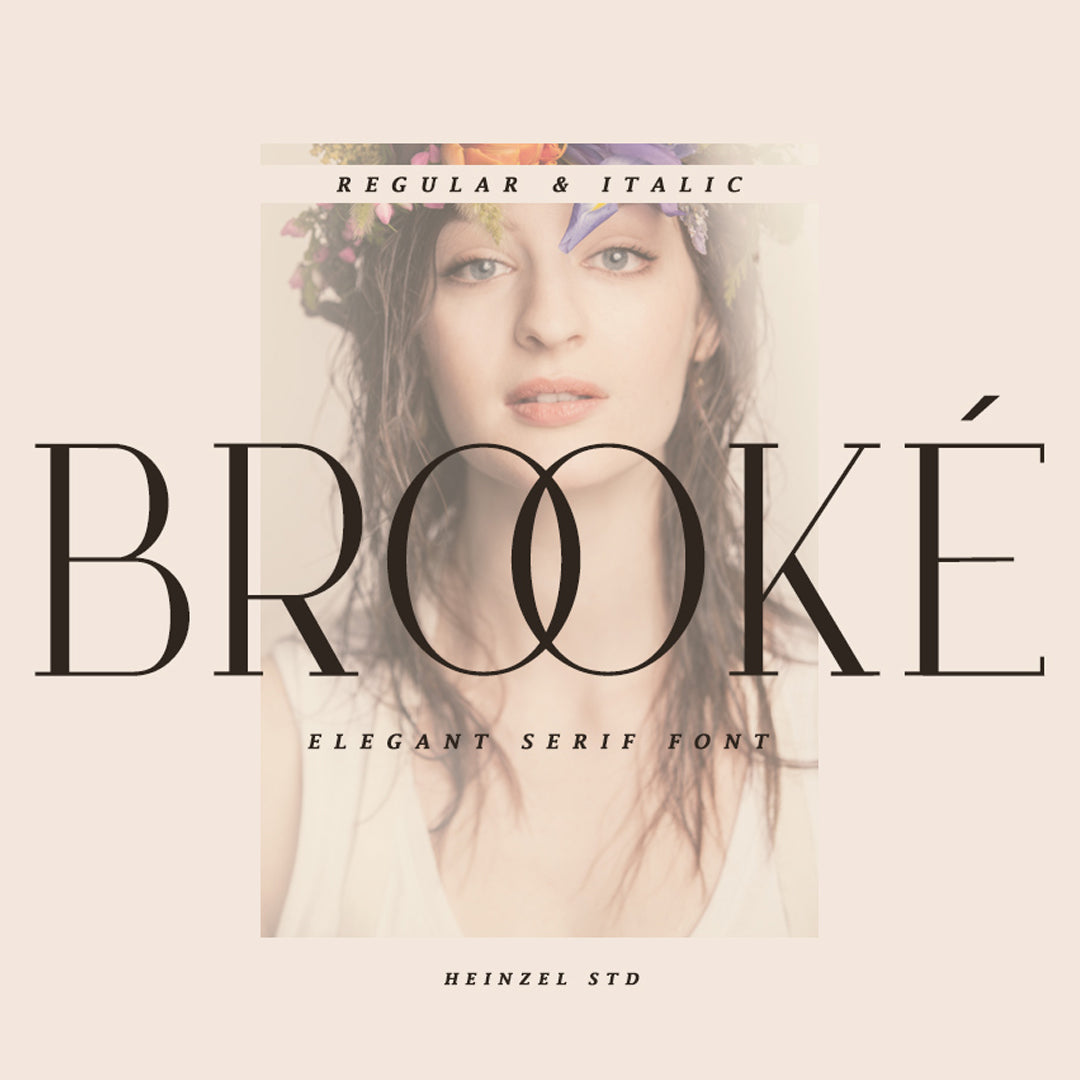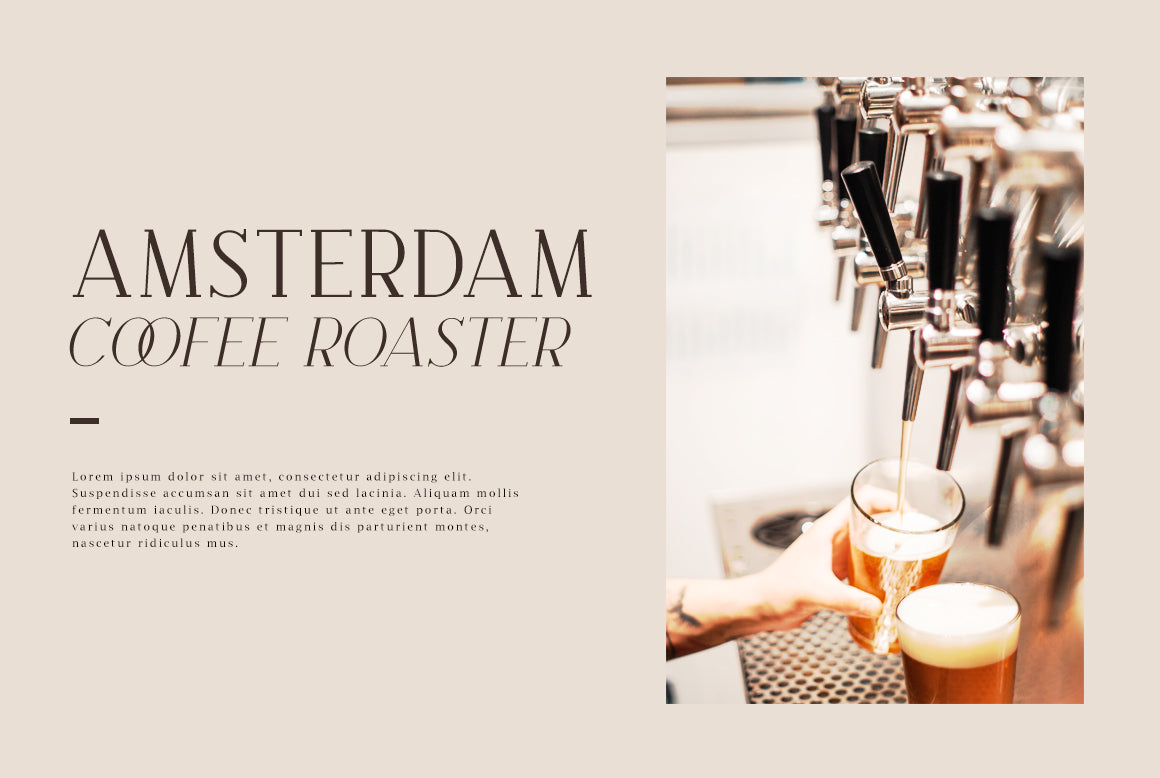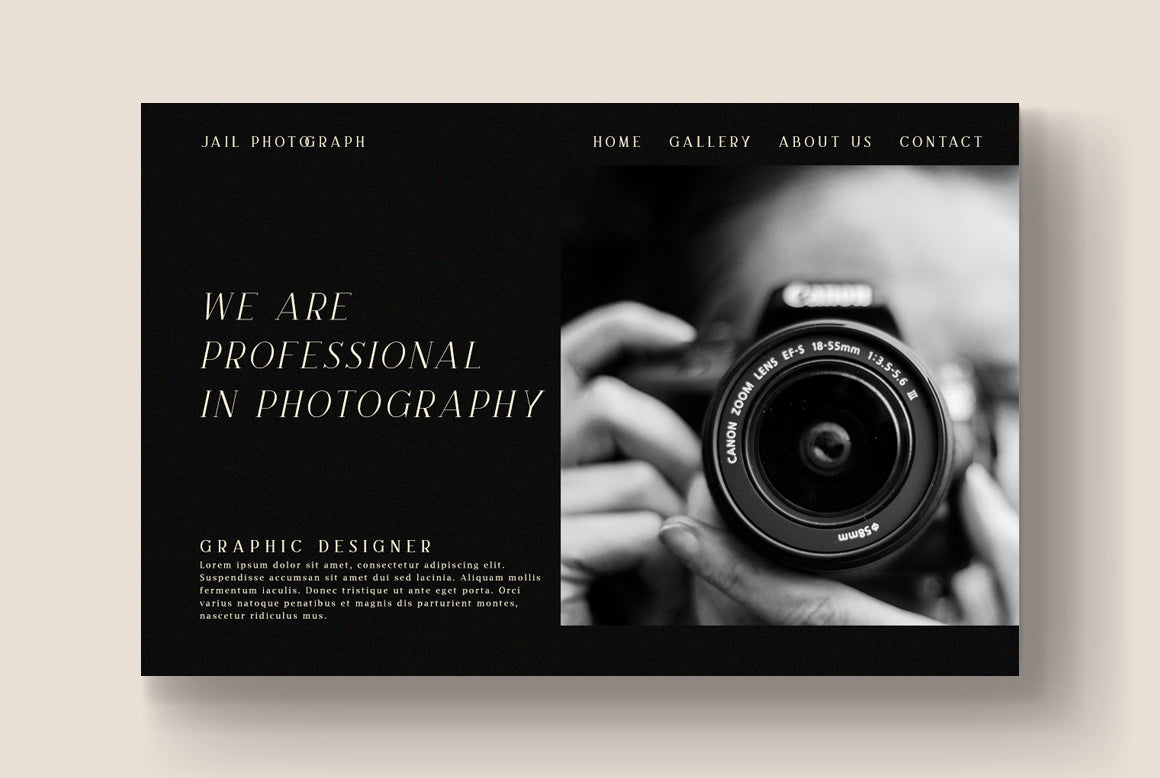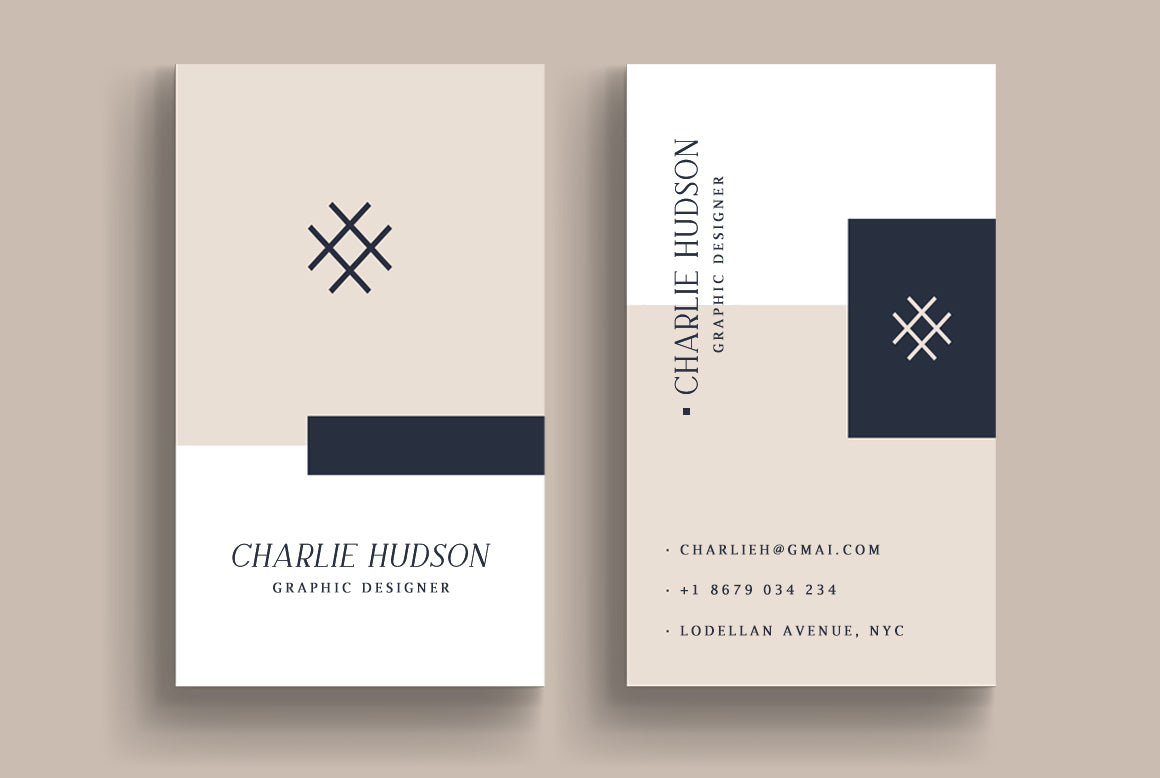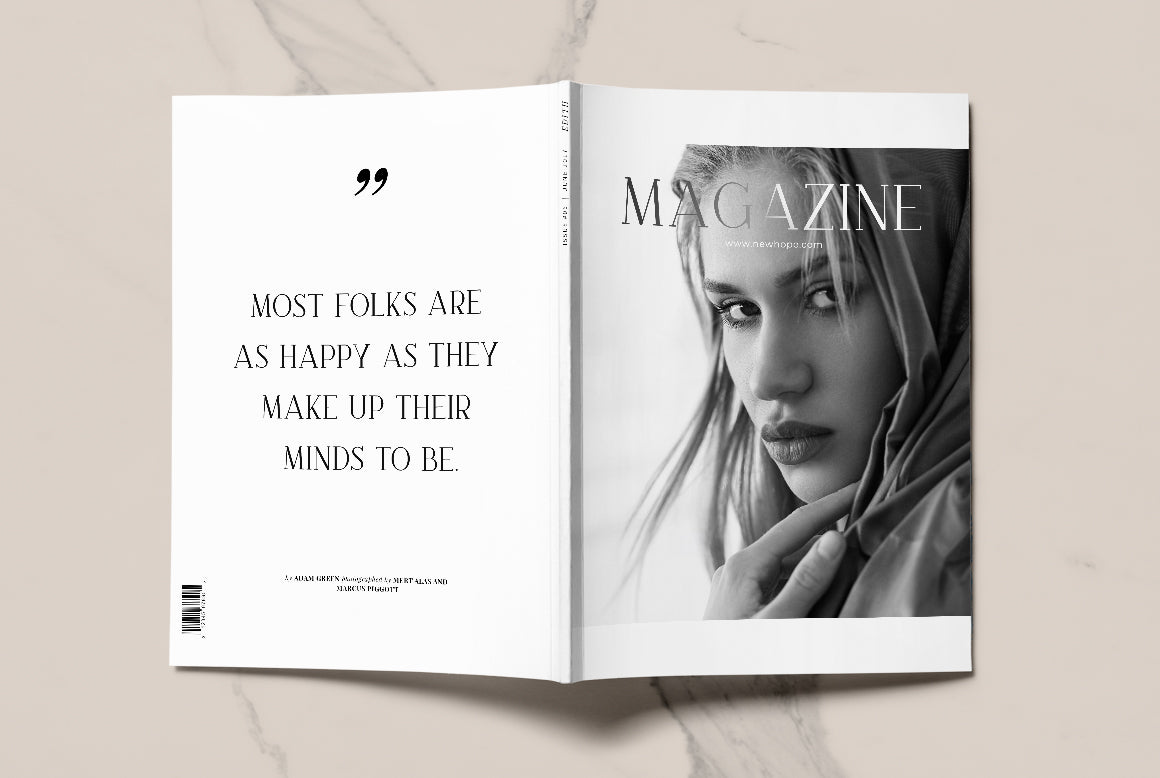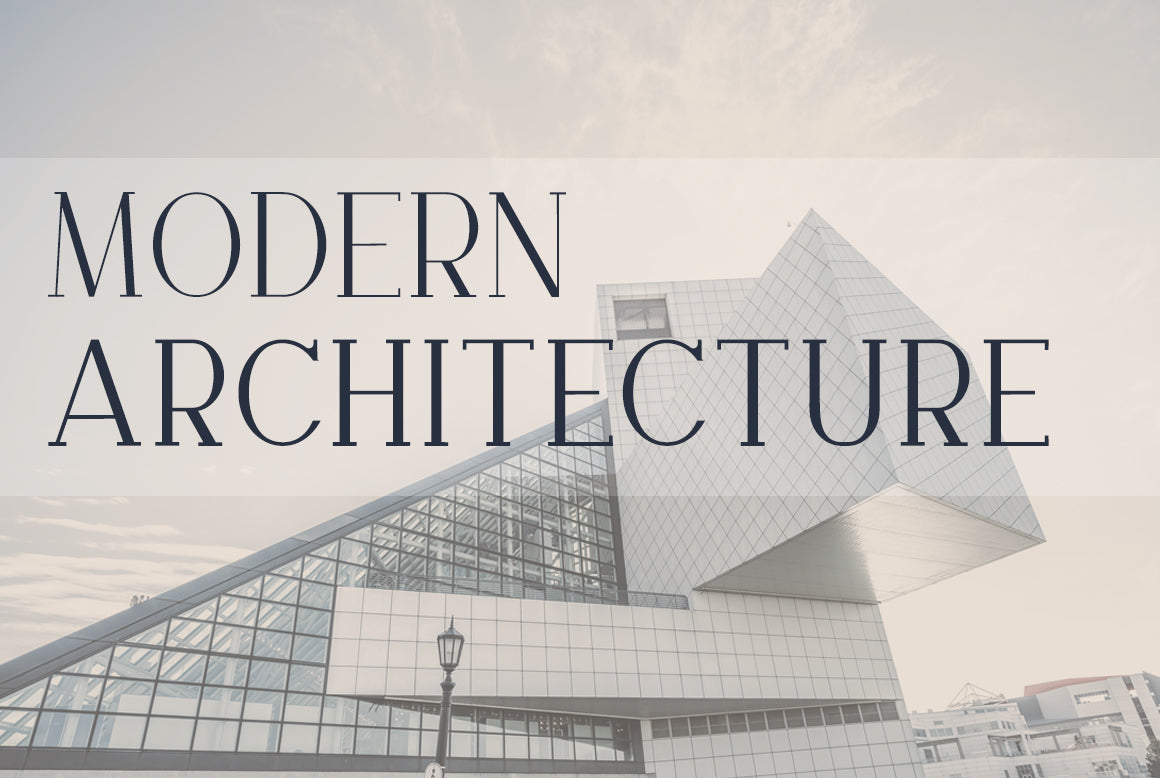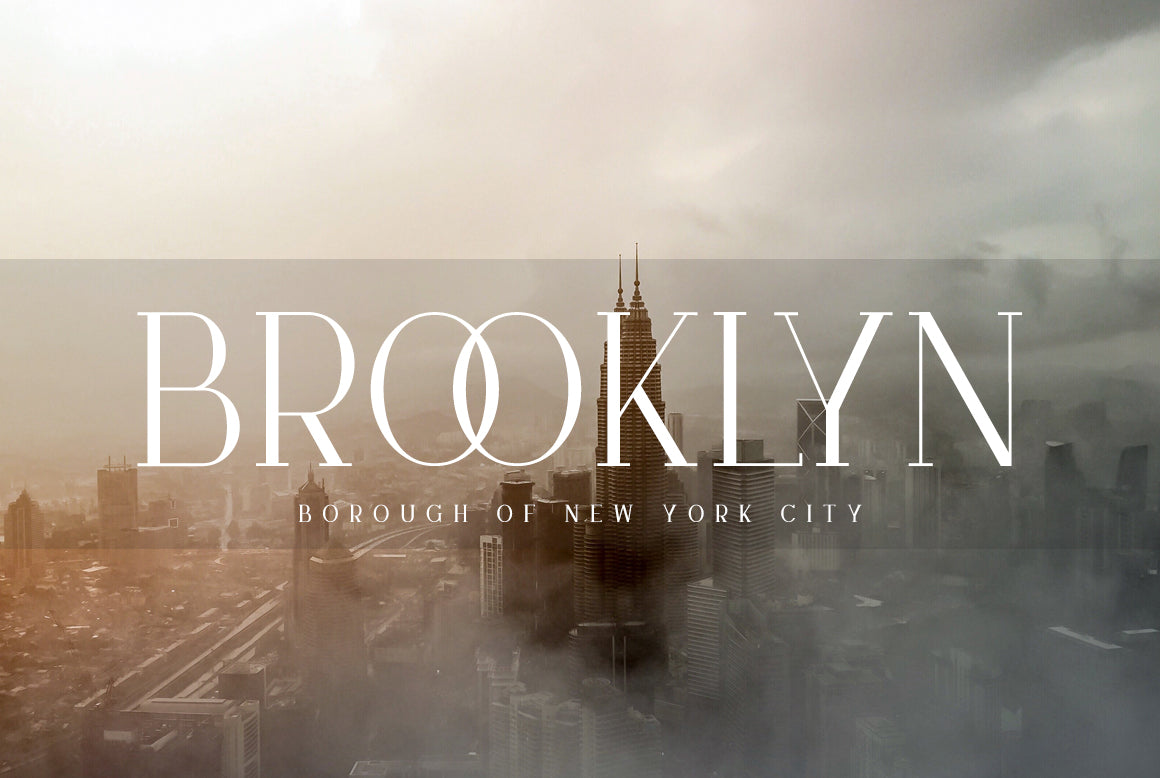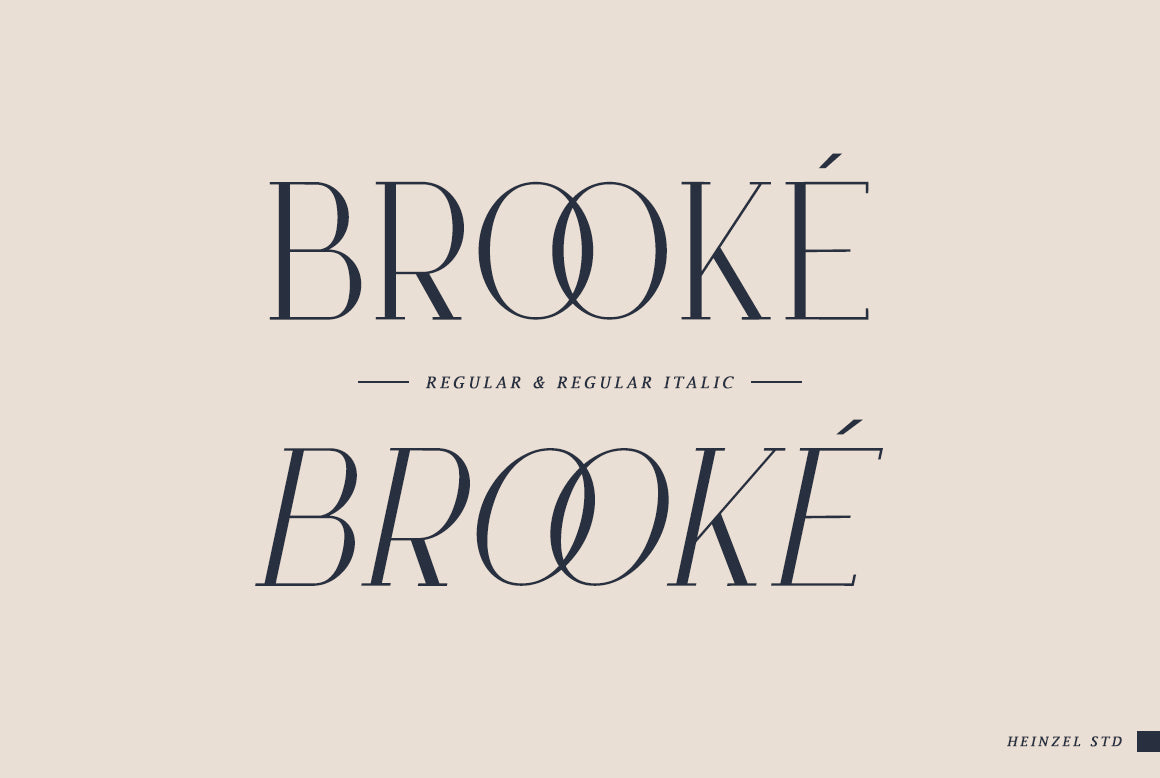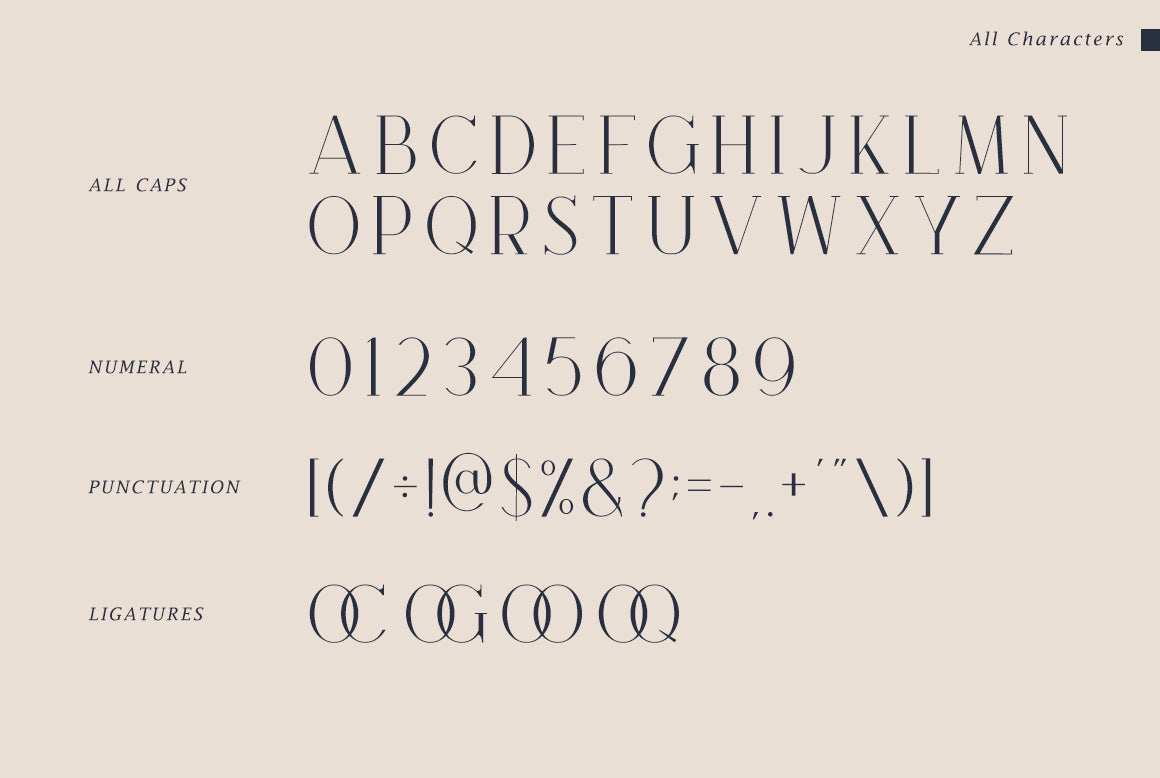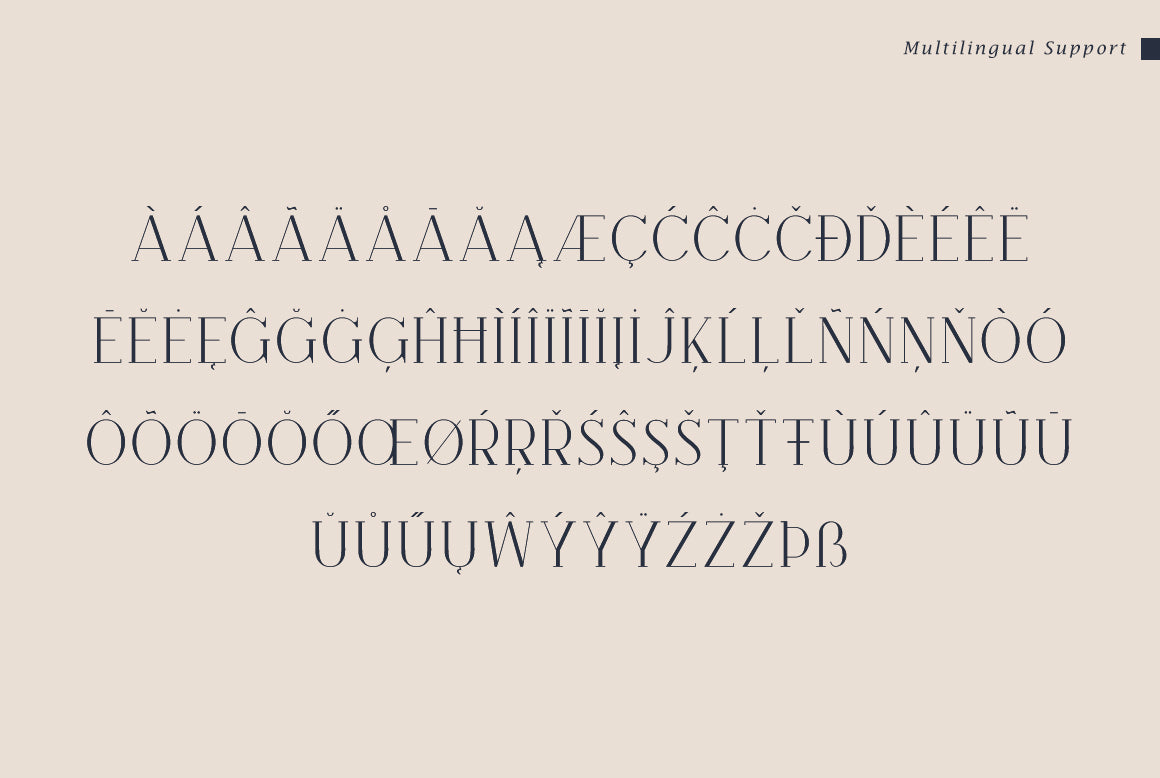
Brooke Serif Font Family
Brooke Font Family – Elegant Modern Serif Font
Brooke Font Family is an elegant and sophisticated serif typeface designed to bring a refined editorial feel to your creative projects. Featuring Regular, Bold, Black and Italic styles, Brooke combines high-contrast letterforms, delicate hairline details, and graceful proportions to create a luxurious and contemporary typography style.
Perfect for fashion branding, luxury logos, editorial design, magazines, wedding invitations, beauty products, packaging, social media graphics, headlines, and elegant advertising, Brooke adds a timeless yet modern character to every design.
Its dramatic contrast and stylish serif details make Brooke especially suitable for large display typography, where its graceful forms can stand out beautifully. The italic style adds an expressive and sophisticated alternative for creating emphasis and visual contrast.
Whether you're designing a luxury brand identity, fashion magazine, beauty campaign, wedding stationery, or premium packaging, Brooke Font Family offers an elegant typographic solution with a polished editorial aesthetic.
Brooke Serif Font Family is a high-contrast serif typeface available in Regular, Bold, Black, and Italic styles. It features hairline details and defined letterforms suited for display typography.